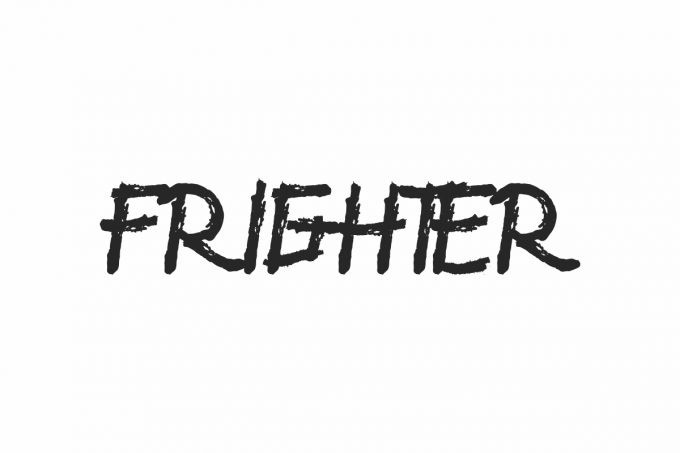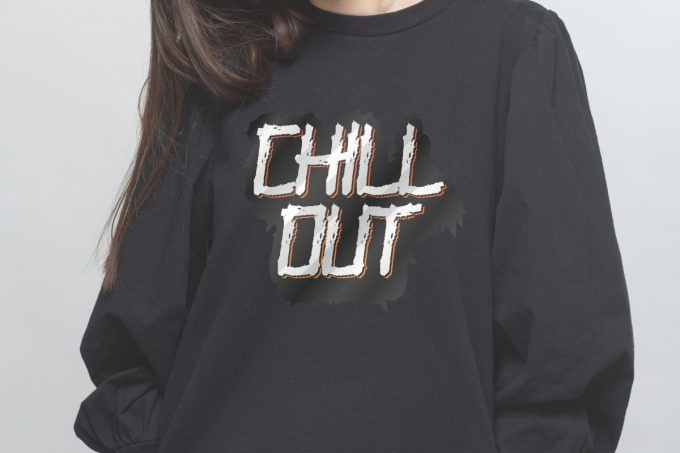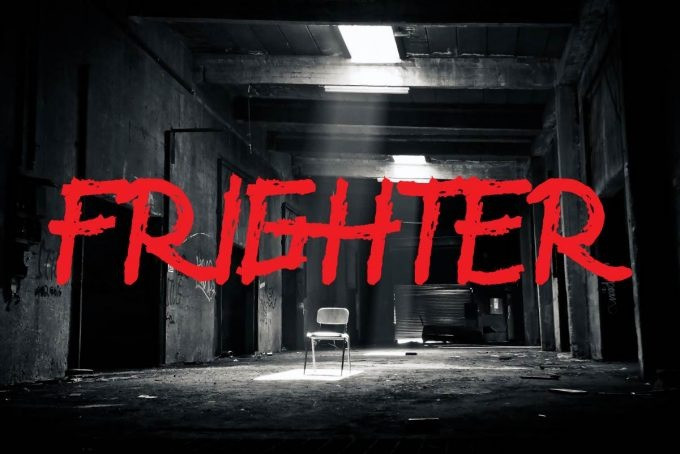
Frighter Brush Font
Frighter will be great for any projects (require extended license) including : branding, logo, stationery, business card, signage, flyer, brochure etc. The them of this font is horror, games, speed, racing, sport, grunge, rough, complex, unsual etc